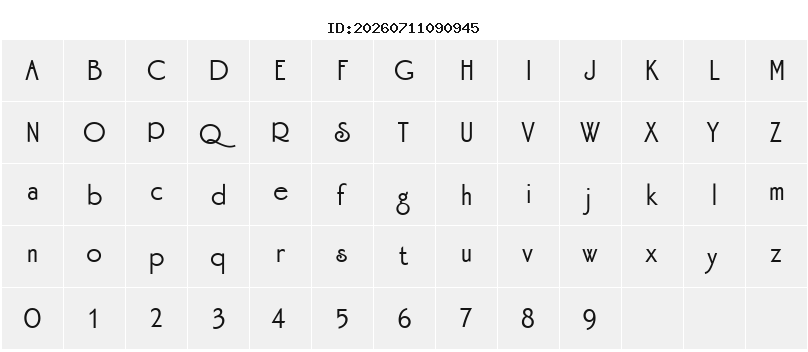
About HamptonsBF.ttf
HamptonsBF.ttf is a modern, elegant sans-serif font designed for ultimate readability and visual harmony. Perfect for branding, headlines, web design, and print materials.